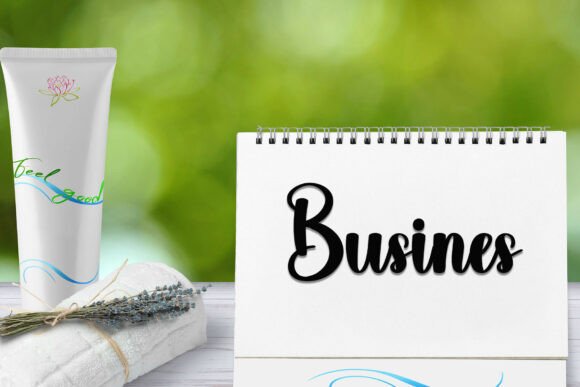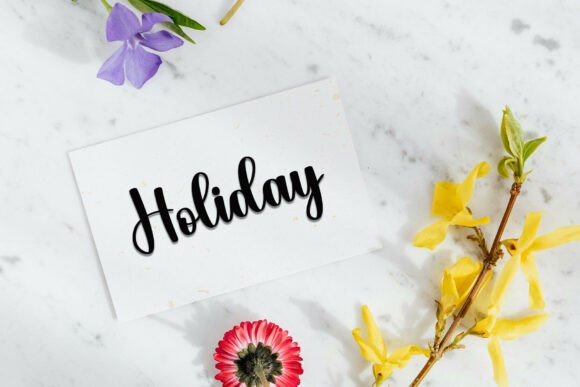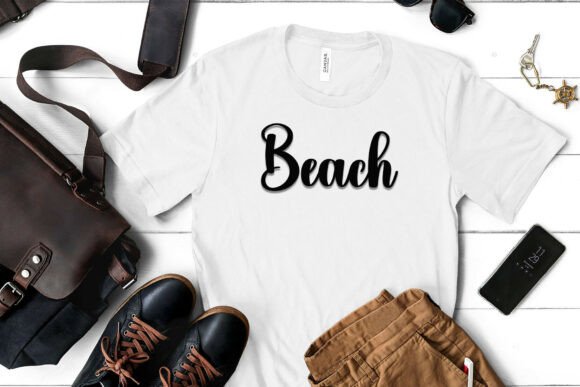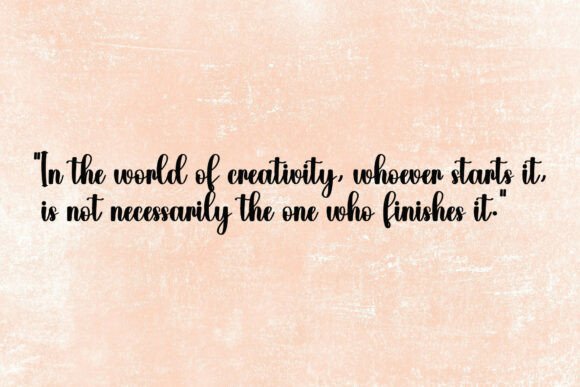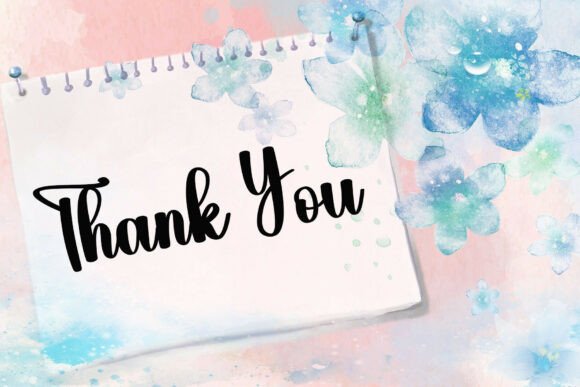
Introducing Hamster Font: The Sweet and Cursive Handwritten Font for Your Design Needs
Are you looking for a font that can add a touch of elegance and whimsy to your designs? Look no further than Hamster Font, a sweet and cursive handwritten font that is perfect for a variety of design projects. With its gentle and flowing curves, Hamster Font is sure to bring a joyful and romantic touch to your work.
What Makes Hamster Font Special?
Hamster Font is a unique and versatile font that can be used for a wide range of design ideas. Its cursive and handwritten style gives it a personal and human touch, making it perfect for designs that require a more personal and emotive feel. Whether you’re working on a branding project, a wedding invitation, or a fashion lookbook, Hamster Font is sure to add a touch of sophistication and elegance.
Hamster Font is a highly versatile font that can be used for a variety of design projects, including:
• Branding: Use Hamster Font to create a unique and memorable brand identity that stands out from the crowd.
• Logo Design: Create a stunning logo that showcases your brand’s personality and style with Hamster Font.
• Wedding Things: Add a touch of romance and elegance to your wedding invitations, programs, and other stationery with Hamster Font.
• Greeting Cards: Use Hamster Font to create beautiful and heartfelt greeting cards for any occasion.
• Fashion: Add a touch of glamour and sophistication to your fashion designs, lookbooks, and marketing materials with Hamster Font.
• Marketing Promotion: Use Hamster Font to create eye-catching and effective marketing materials that grab attention and leave a lasting impression.
Why Choose Hamster Font?
So why choose Hamster Font for your design needs? Here are just a few reasons:
• Elegant yet Casual: Hamster Font is the perfect combination of elegant and casual, making it suitable for a wide range of design projects.
• Unique and Versatile: Hamster Font is a unique and versatile font that can be used for a variety of design projects, from branding and logo design to wedding stationery and fashion.
• Easy to Read: Hamster Font is highly legible and easy to read, making it perfect for designs that require a clear and concise message.
• High-Quality: Hamster Font is a high-quality font that is designed to deliver exceptional results in any design project.
Tips for Using Hamster Font
Here are a few tips for using Hamster Font in your design projects:
• Pair with Other Fonts: Experiment with pairing Hamster Font with other fonts to create a unique and visually appealing design.
• Use for Headlines and Titles: Use Hamster Font for headlines and titles to add a touch of elegance and sophistication to your design.
• Experiment with Colors: Experiment with different colors and textures to add depth and interest to your design.
In conclusion, Hamster Font is a sweet and cursive handwritten font that is perfect for designers and crafters looking to add a touch of elegance and whimsy to their designs. With its versatile and unique style, Hamster Font is suitable for a wide range of design projects, from branding and logo design to wedding stationery and fashion. So why not give Hamster Font a try and see how it can elevate your designs to the next level?